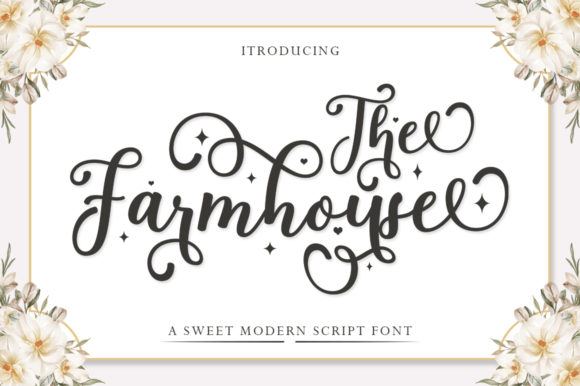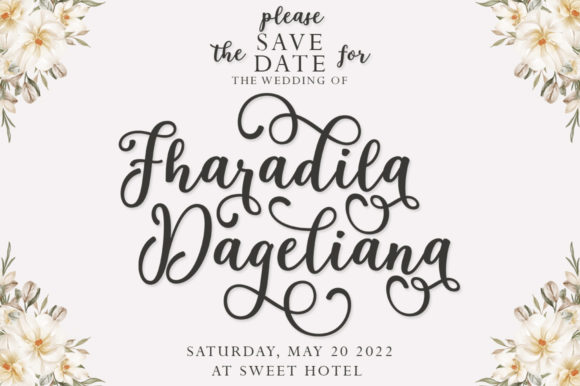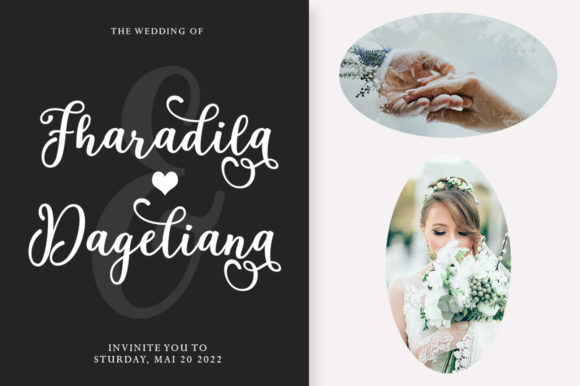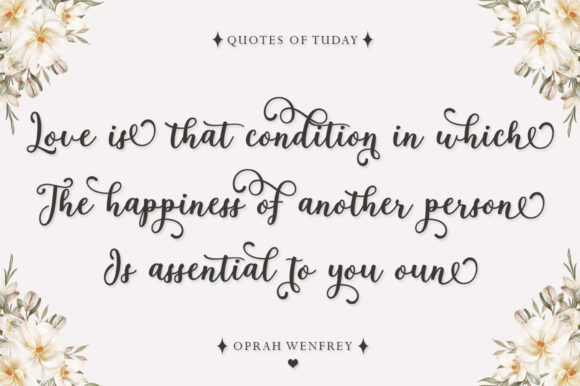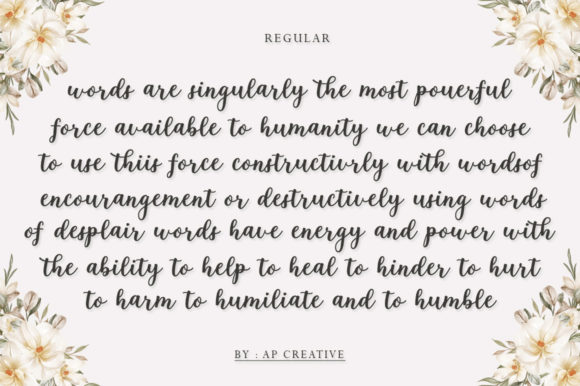
About The Farmhouse Font
The Farmhouse font stands out as a delicate and fashionable script typeface, adding a touch of elegance to a wide range of design projects. Its versatility makes it a perfect choice for various branding endeavors, including logos, t-shirt printing, and creative product designs, among other applications. This font is thoughtfully crafted to elevate the visual appeal of your projects, providing a sophisticated and stylish aesthetic.
One of the key features of The Farmhouse font is its PUA encoding. This unique encoding system allows users to access an extensive collection of glyphs and swashes, enhancing the creative possibilities. The Private Use Area (PUA) encoding enables the utilization of special characters, ligatures, and decorative elements, empowering designers to customize and personalize their work extensively.
Whether you are working on a logo for a high-end brand, designing eye-catching apparel, or creating unique products, The Farmhouse font offers a refined and timeless quality. Its script style exudes a sense of elegance, making it particularly well-suited for projects that demand a touch of sophistication.
In logo design, The Farmhouse font can transform a brand’s visual identity, infusing it with a sense of luxury and class. The fluid strokes and intricate details of the script contribute to a distinctive and memorable logo that captures the essence of the brand it represents.
For t-shirt printing, The Farmhouse font adds a trendy and fashionable element to your designs. Whether you’re creating custom apparel for a clothing line or promotional merchandise, the script’s aesthetic appeal enhances the overall look and feel of the garments.
Creative products, such as packaging, stationery, or promotional materials, benefit from The Farmhouse font’s ability to convey a sense of artistic refinement. Its delicate script creates a harmonious balance between sophistication and approachability, making it suitable for a wide array of creative applications.
In conclusion, The Farmhouse font is a valuable asset for designers seeking a delicate and fashionable script typeface. With its PUA encoding and versatility, it brings a level of customization and elegance to branding, t-shirt printing, and various creative projects, making it a go-to choice for those aiming to elevate their design aesthetics.